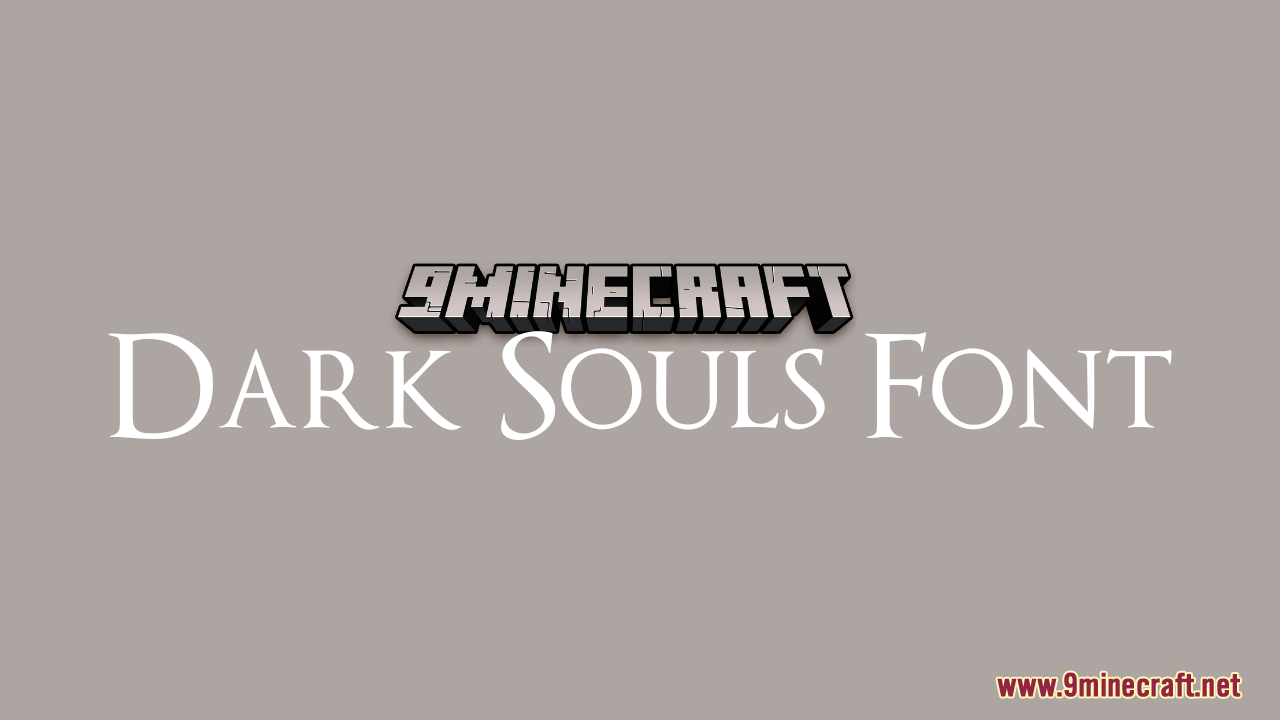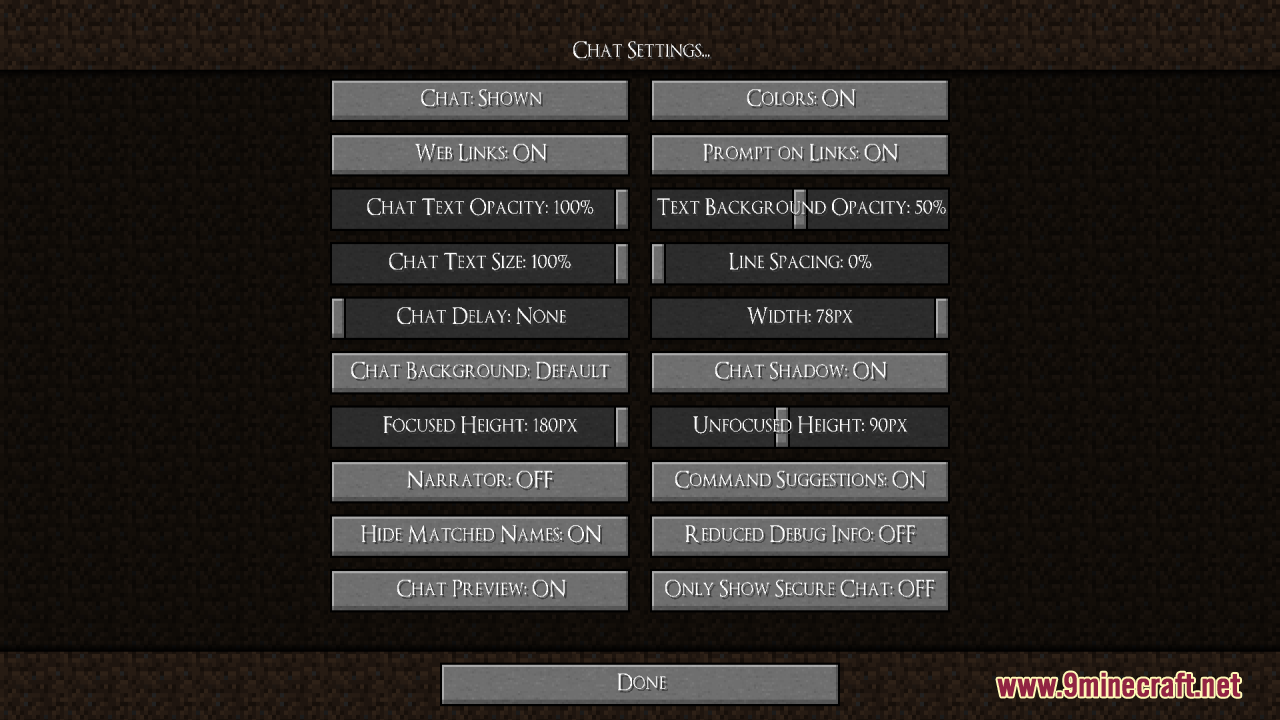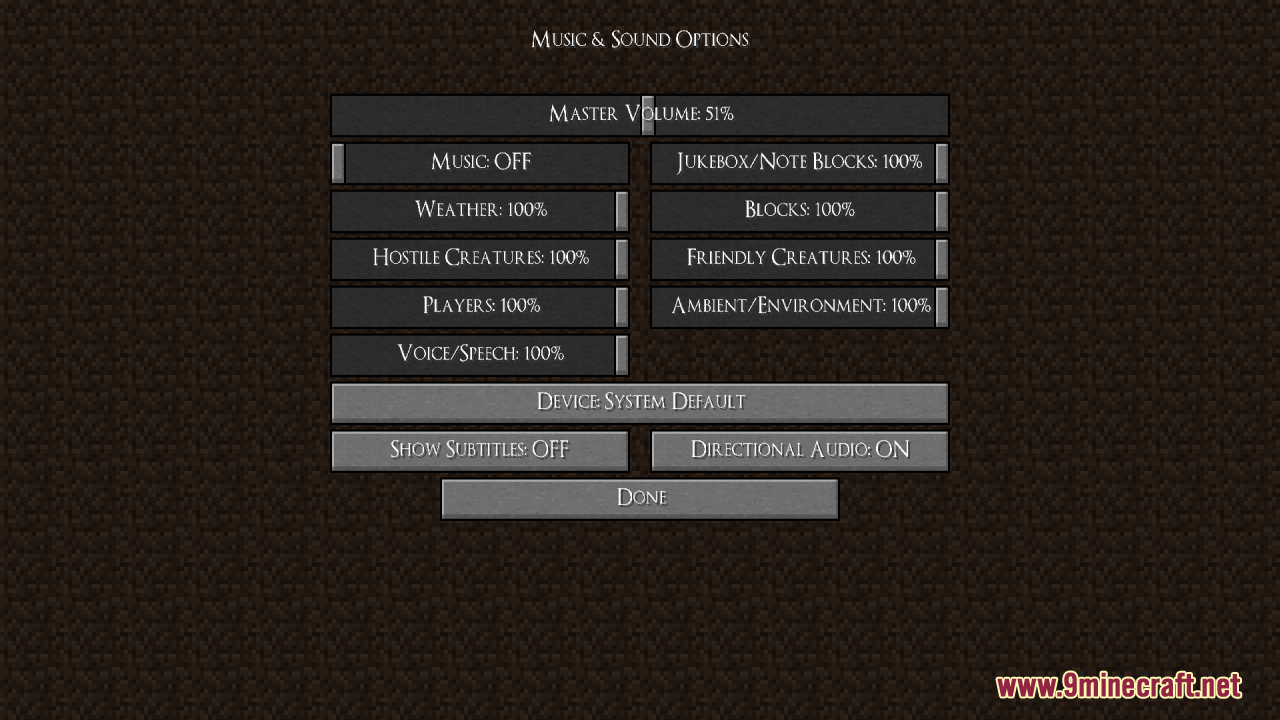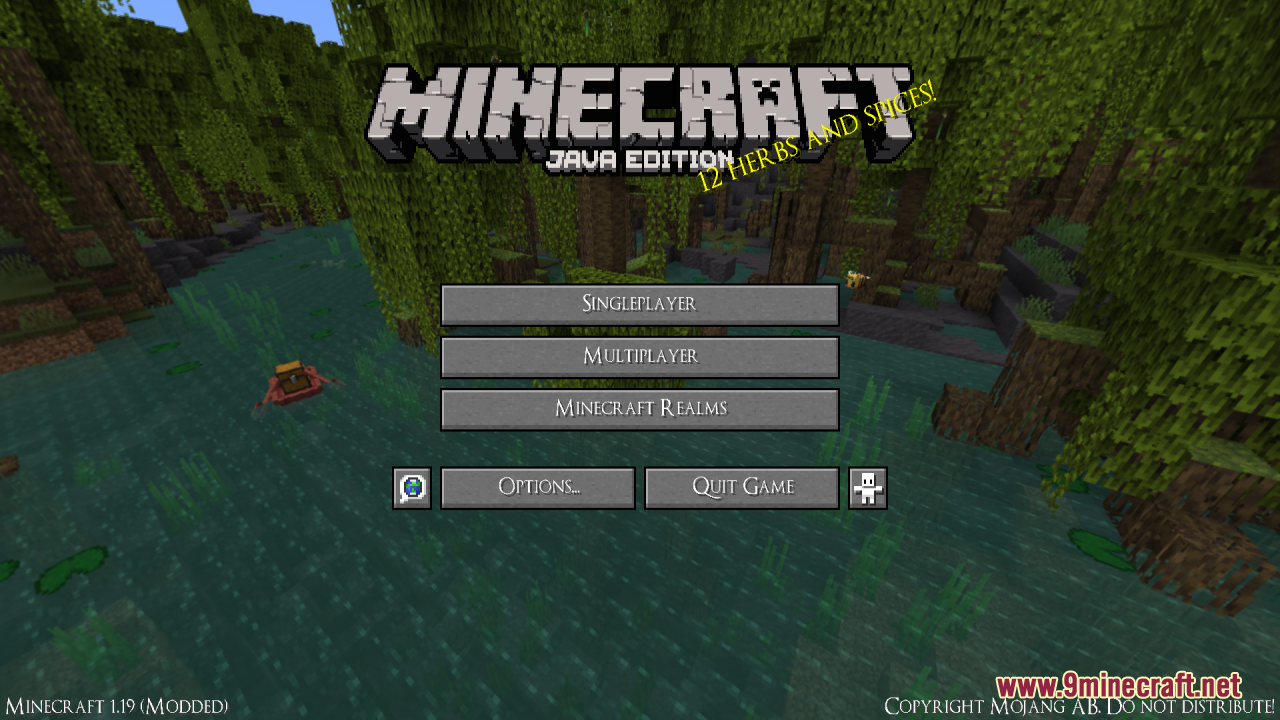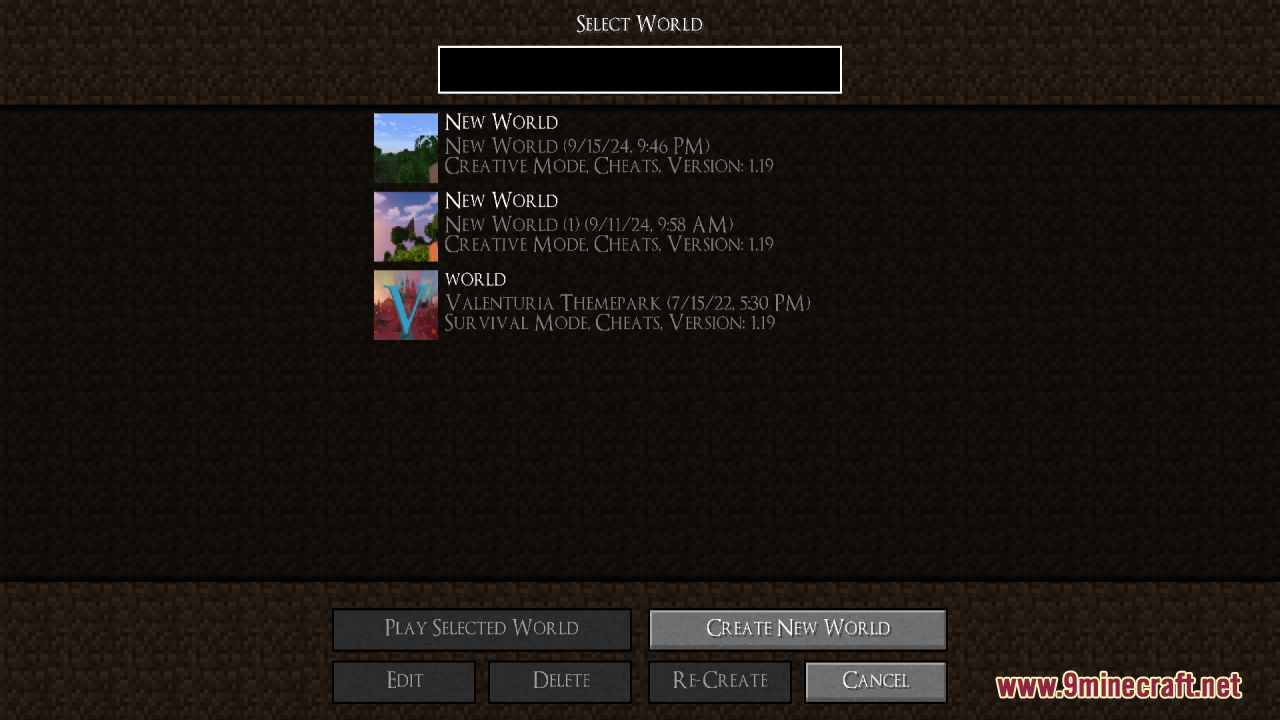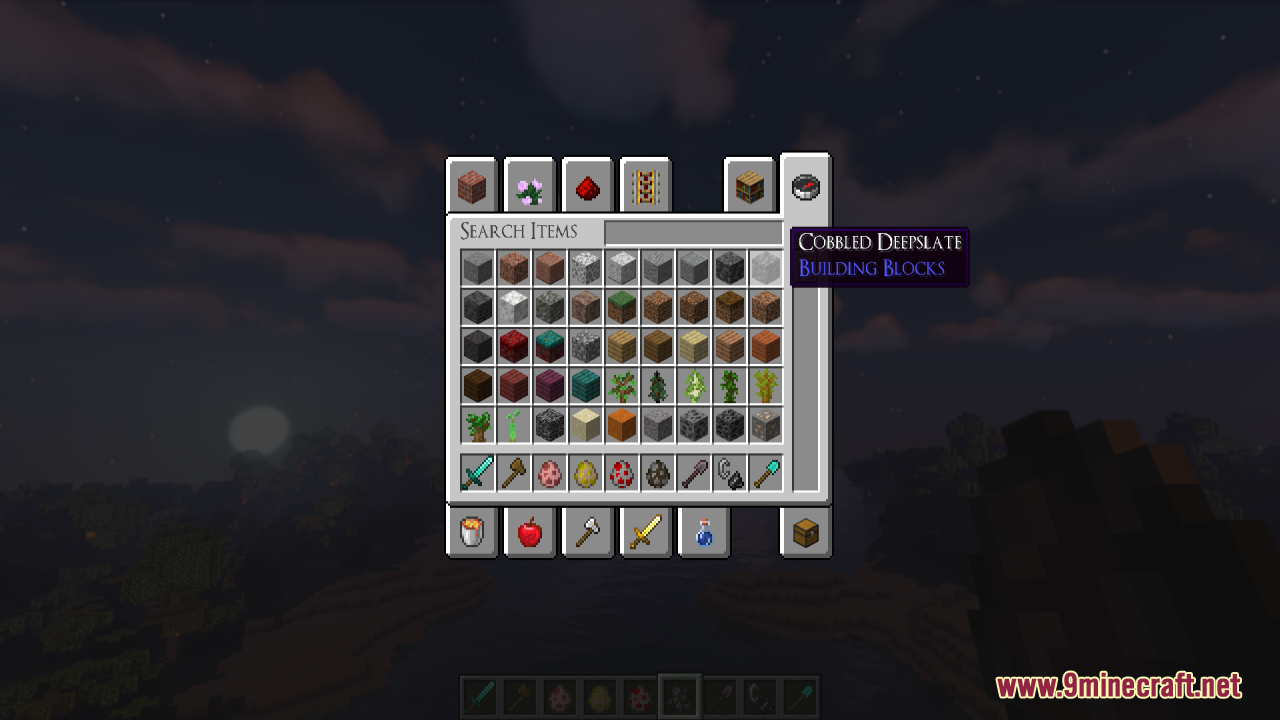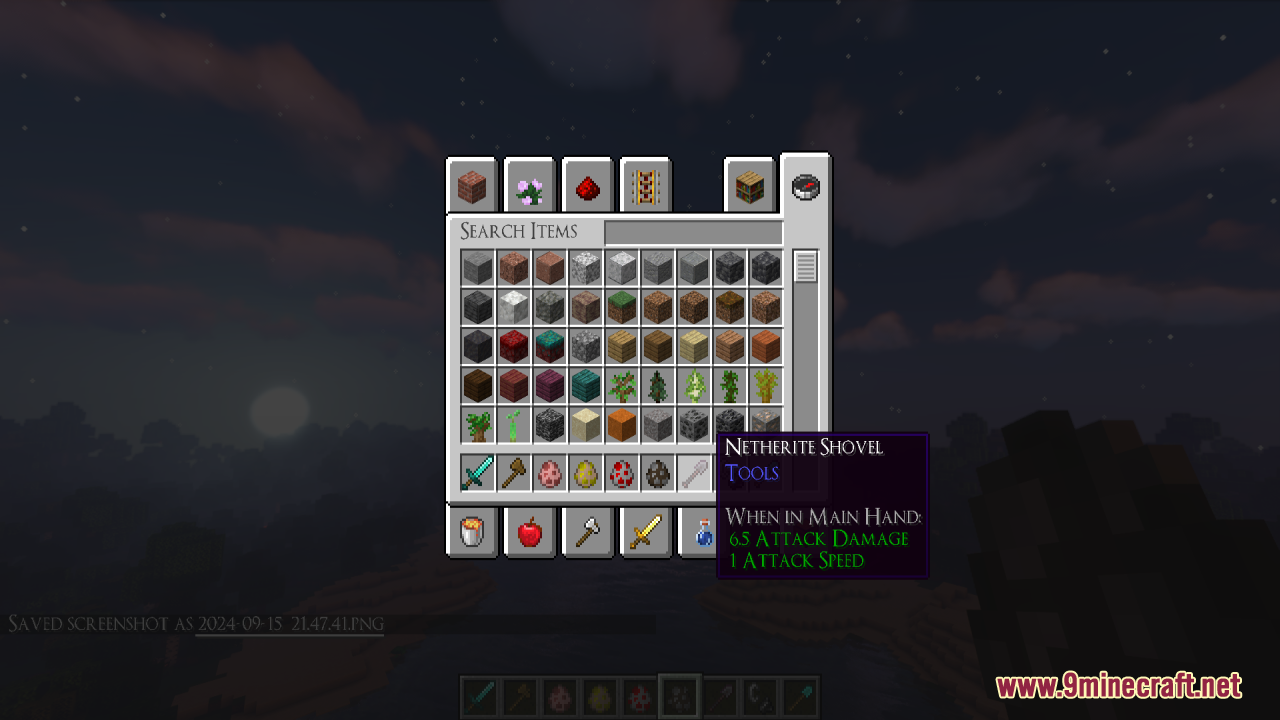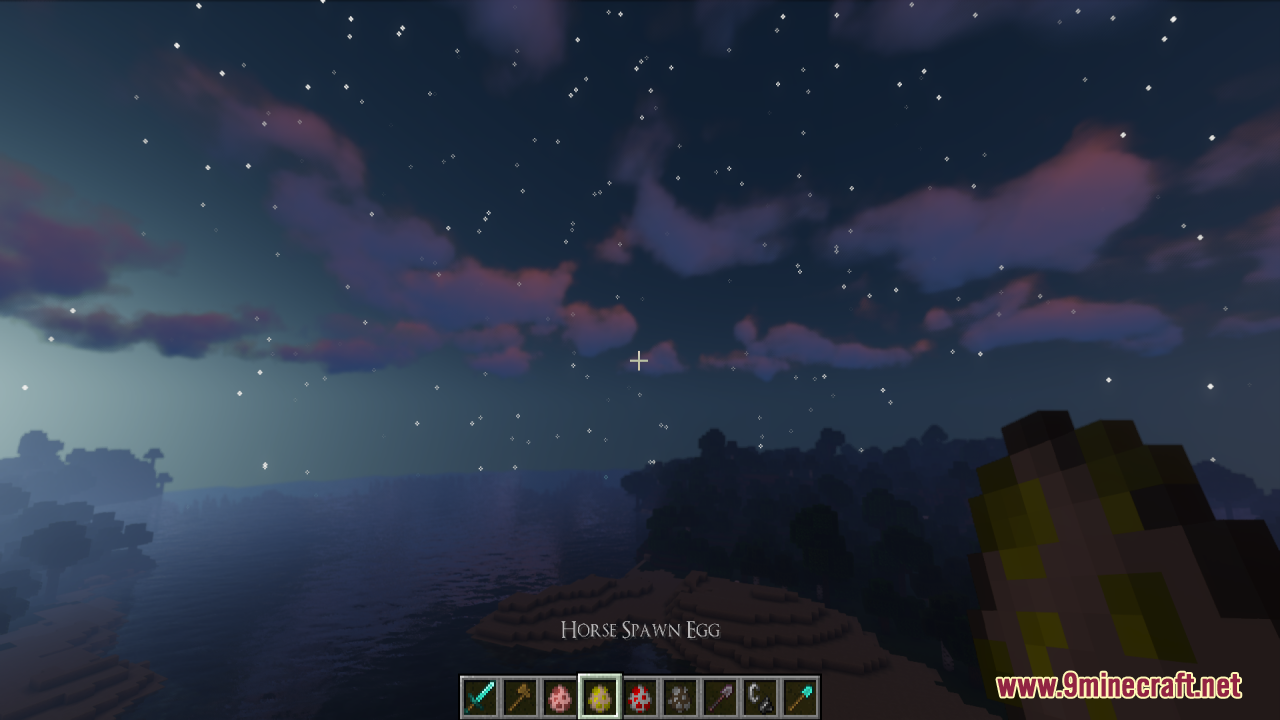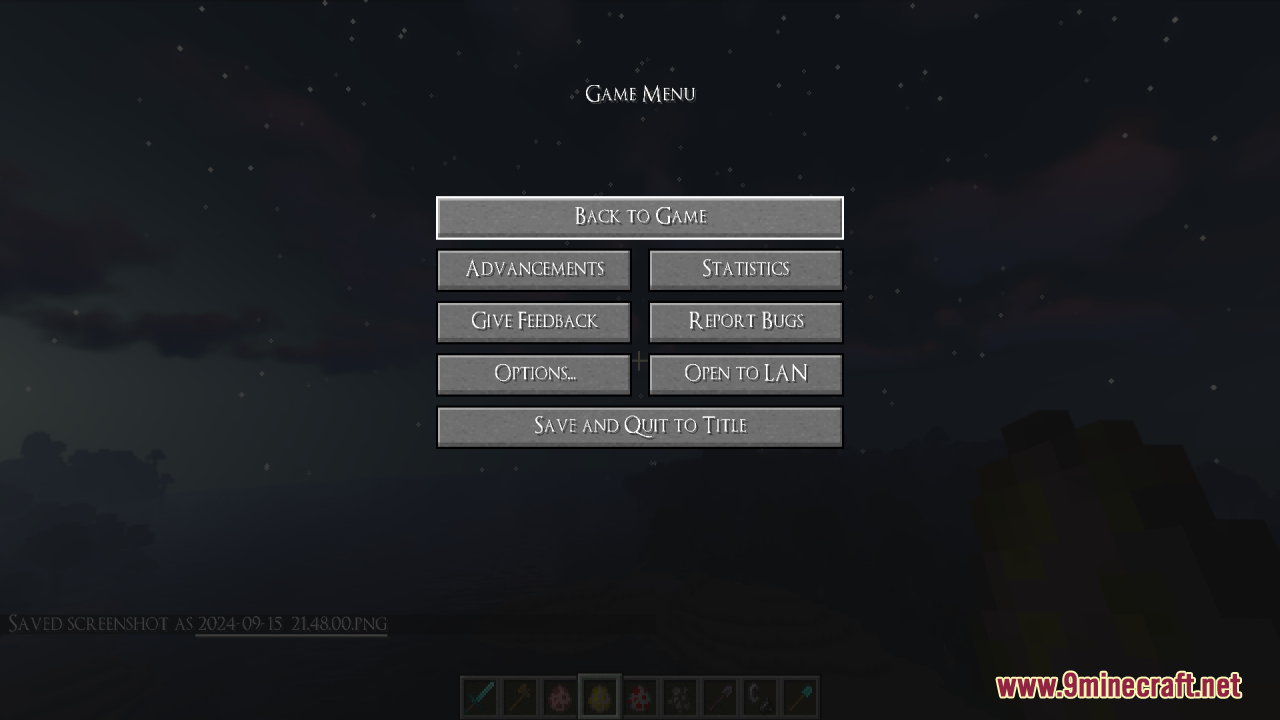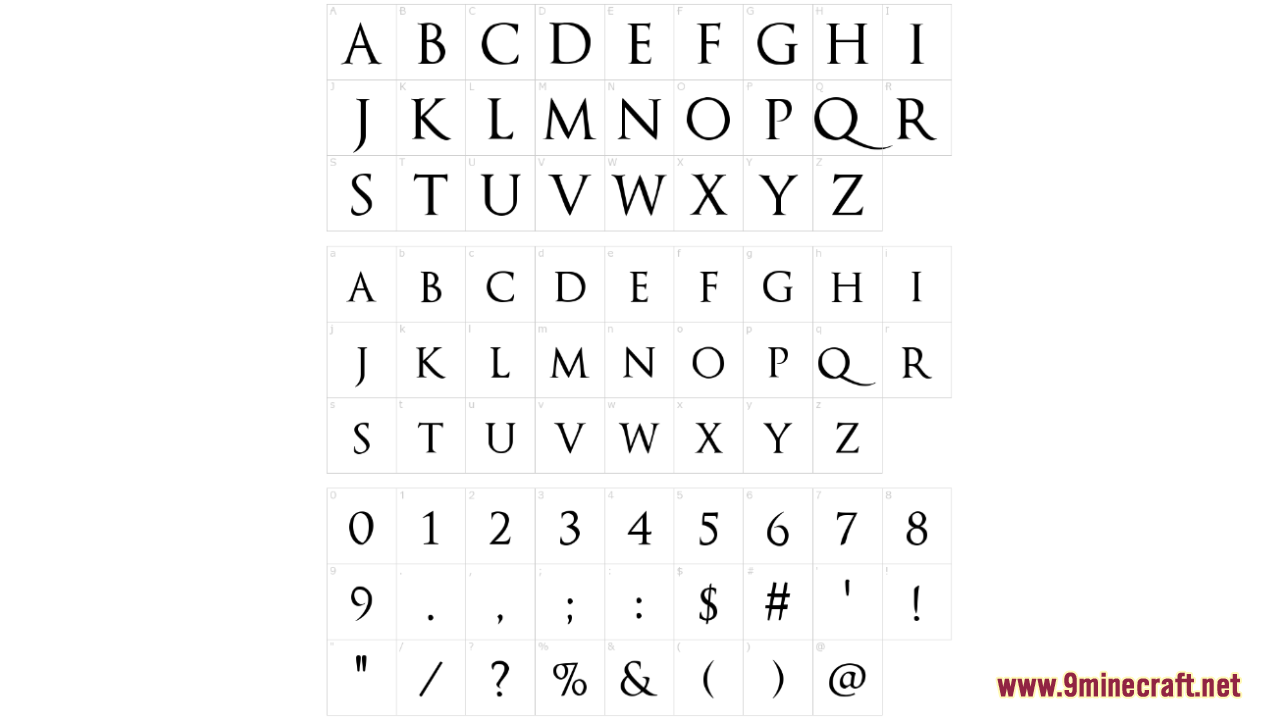
Dark Souls Font Resource Pack simply enhances your Minecraft experience by introducing a gothic and medieval-themed font inspired by the Dark Souls series. This font brings a more immersive and atmospheric feel to the game, aligning with the darker and more mysterious aesthetics often found in fantasy-themed builds or gameplay. Despite its gothic style, the font remains clear and easy to read, making it suitable for both everyday gameplay and specialized thematic adventures.